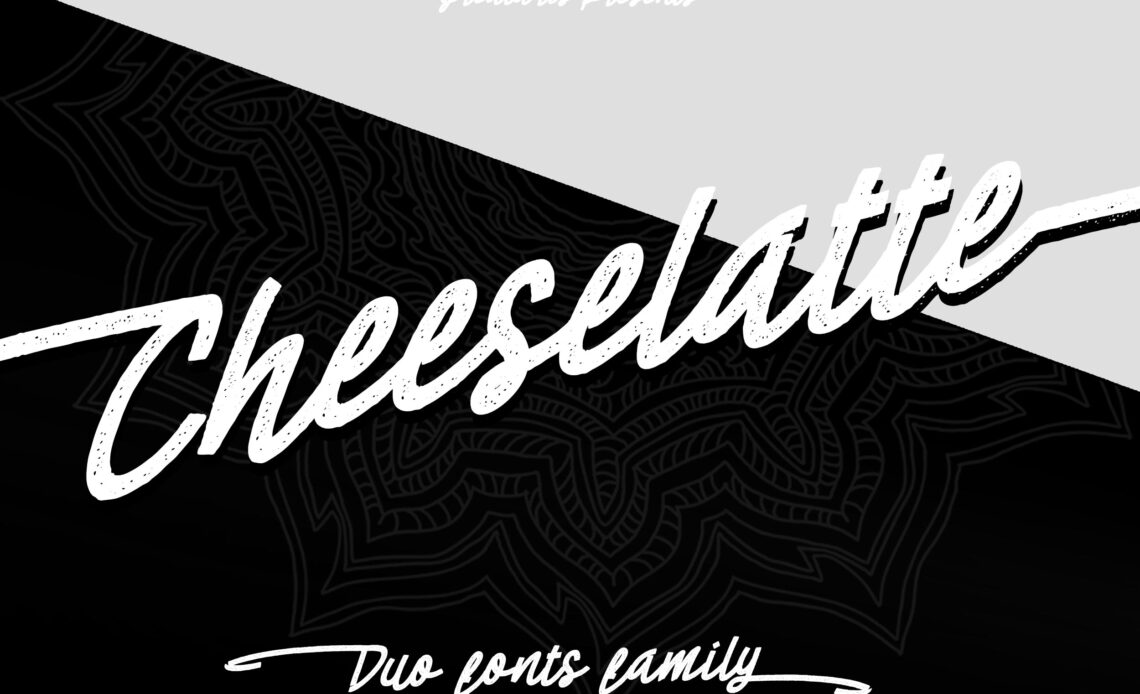
Step into the world of irresistible charm and elegance with Cheese Latte Font, a captivating script font family designed to ignite your creativity and leave an indelible impression on your projects. Experience the magic of handwritten curves and bold, permanent marker strokes harmoniously blended to deliver a touch of naughtiness and a hint of nostalgia. Unleash your inner artist and explore the endless possibilities that await you with Cheeselatte.
Embrace the artistry of Cheese Latte Font, a meticulously crafted creation inspired by the rustic charm of vintage packaging, the allure of timeless magazines, and the wisdom found within the pages of well-loved books. Each glyph exudes a unique personality, adding a layer of depth and sophistication to your designs. Whether you're crafting logos, branding materials, social media graphics, or eye-catching invitations, Cheese Latte Font will elevate your projects to new heights.
Dive into the versatility of Cheese Latte Font and discover a world of creative possibilities. From playful and whimsical designs to elegant and sophisticated masterpieces, Cheese Latte Font effortlessly adapts to your vision. Its bold strokes command attention, while its delicate curves add a touch of femininity and grace. Unleash your creativity and let Cheese Latte Font guide you towards exceptional designs that captivate and inspire.
Imagine the impact of your designs adorned with Cheese Latte Font, a font that speaks volumes without uttering a single word. Its enchanting aura draws viewers in, creating an emotional connection that lingers long after the page is turned or the screen is closed. Whether you're creating marketing materials, social media posts, or personal projects, Cheese Latte Font will leave an unforgettable mark, ensuring that your message resonates with your audience.